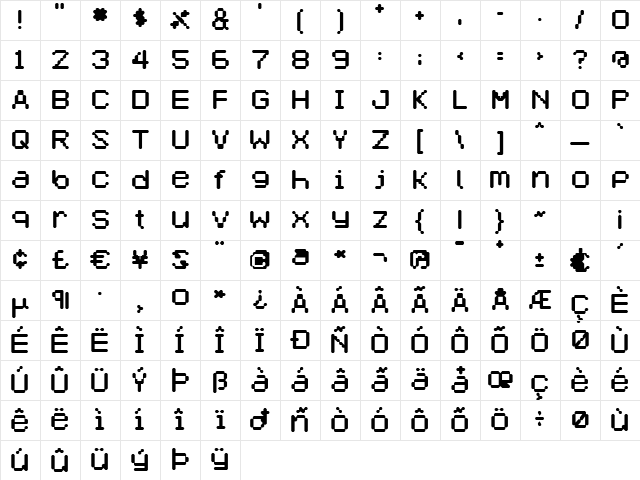
Selector Regular
Foundry: YouWorkForThem
Designer: Michael Cina
Design Context for Selector
Selector is a composed and adaptable typeface that performs quietly and consistently across a wide range of design contexts.